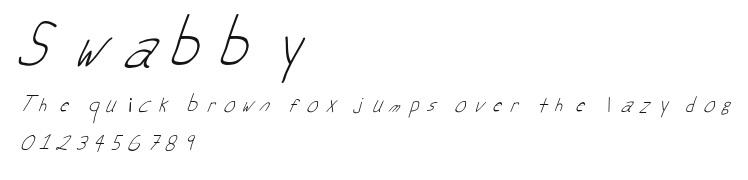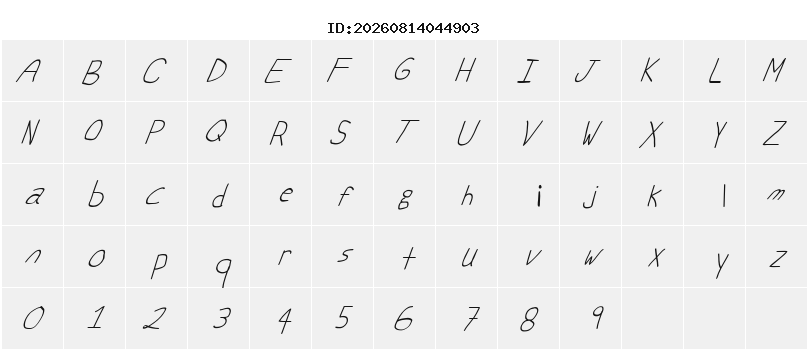
Swabby Preview
• Font Name: Swabby
• Font ID: 1.003;pyrs;Swabby-Italic
• Full Font Name: Swabby Italic
• Version: Version 1.003
• PostScript Name: Swabby-Italic
• Character Count: 231
• Designer: Brian Sullivan
• Manufacturer: Brian Sullivan
About Swabby.ttf
Swabby.ttf is a modern, elegant sans-serif font designed for ultimate readability and visual harmony. Perfect for branding, headlines, web design, and print materials.